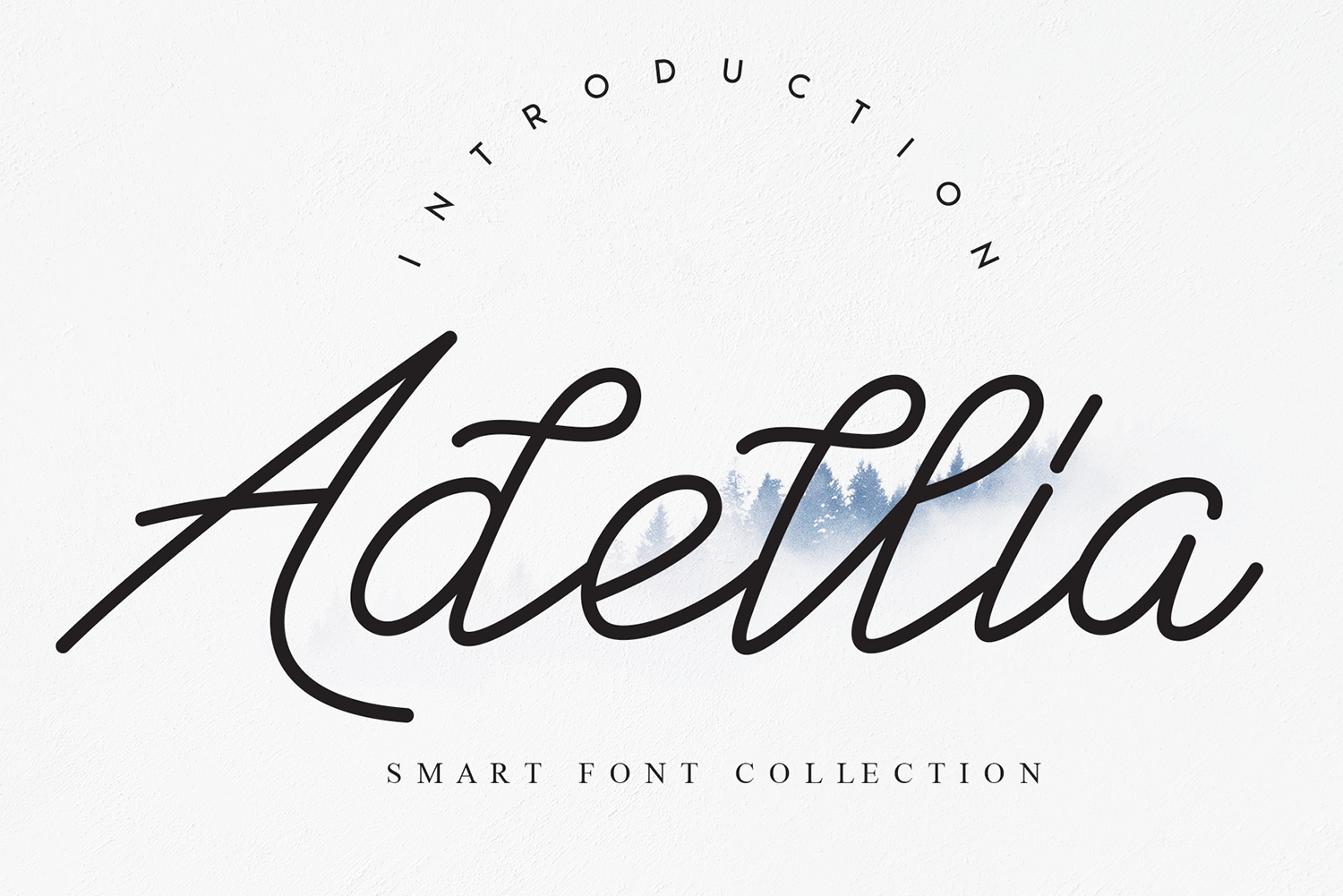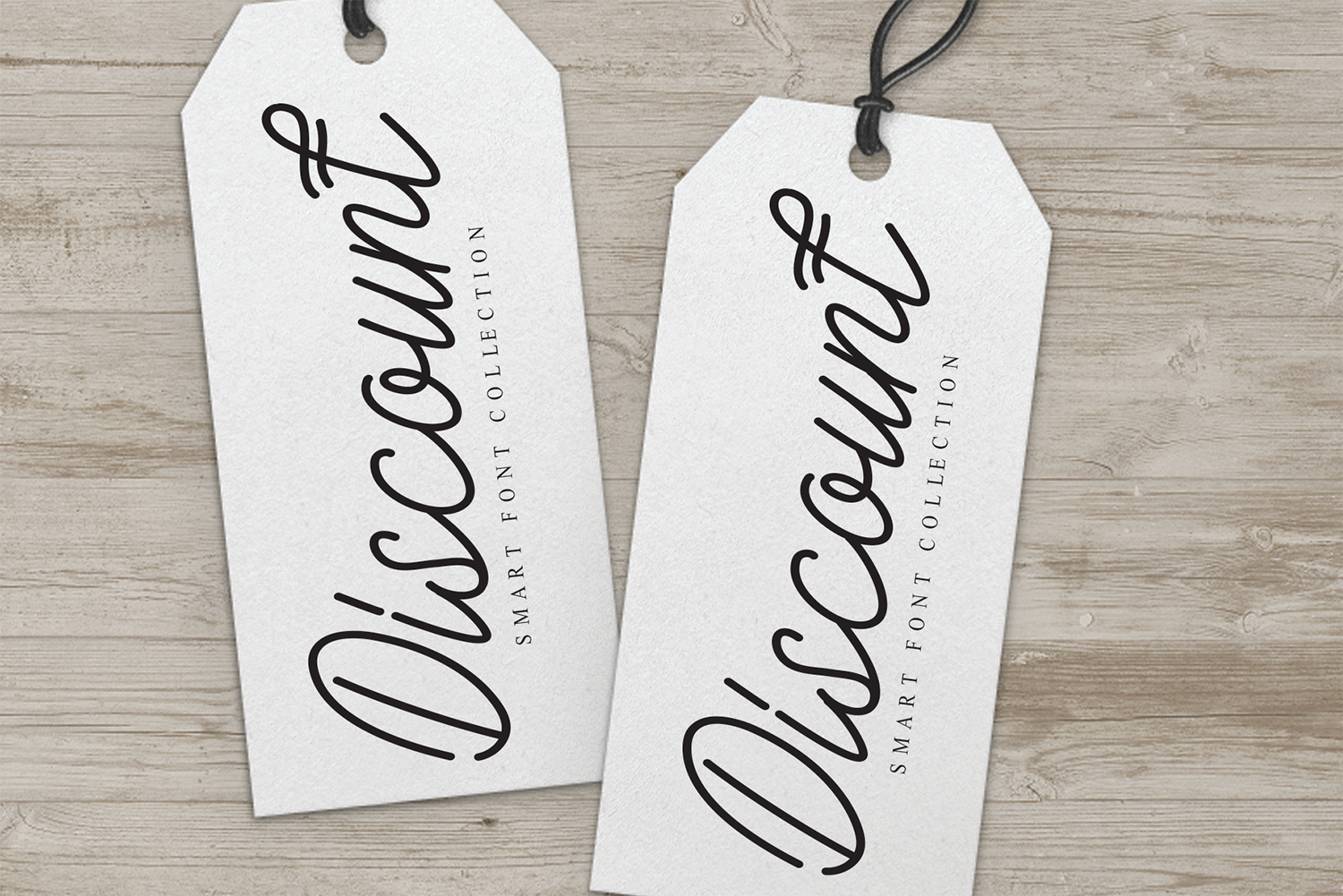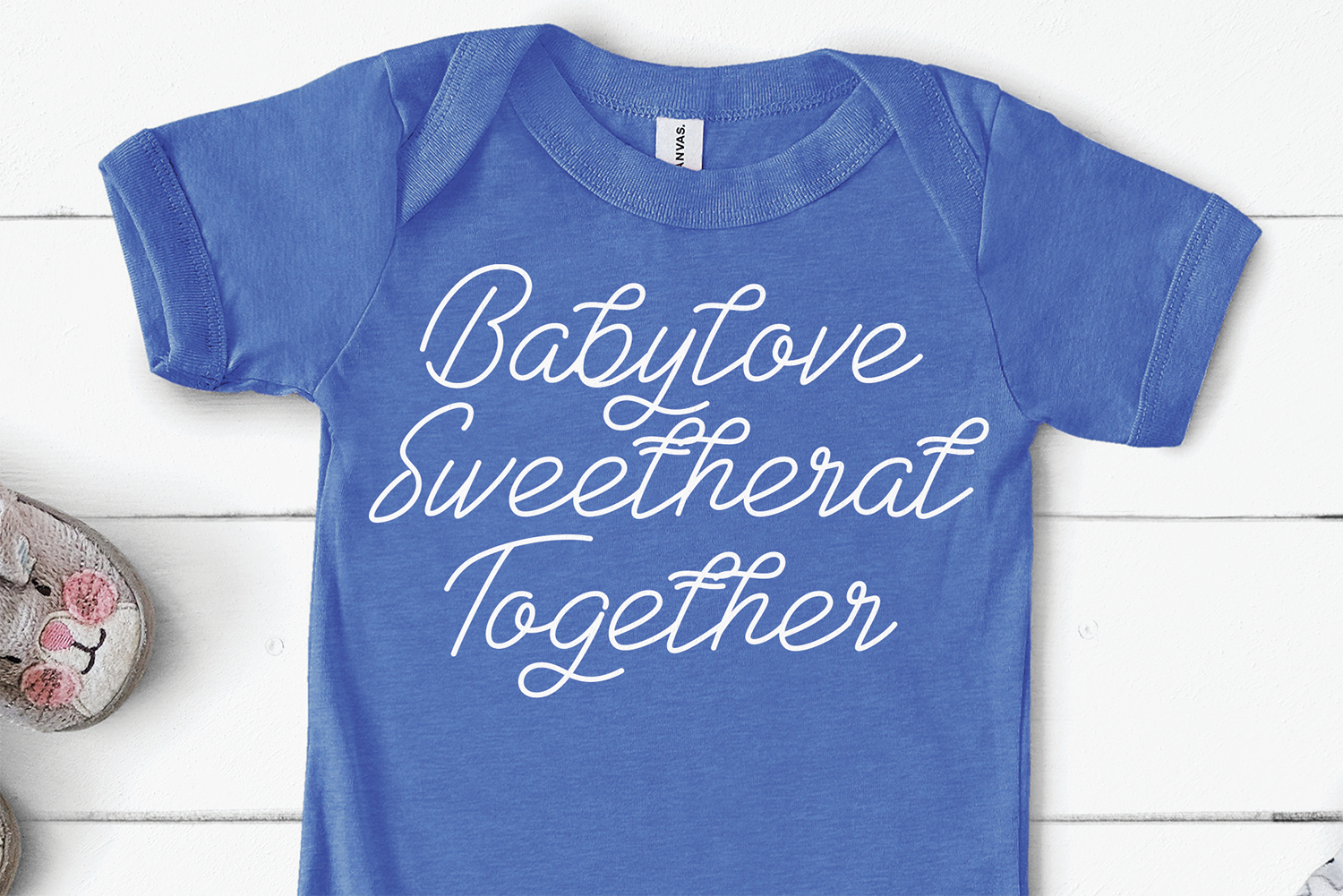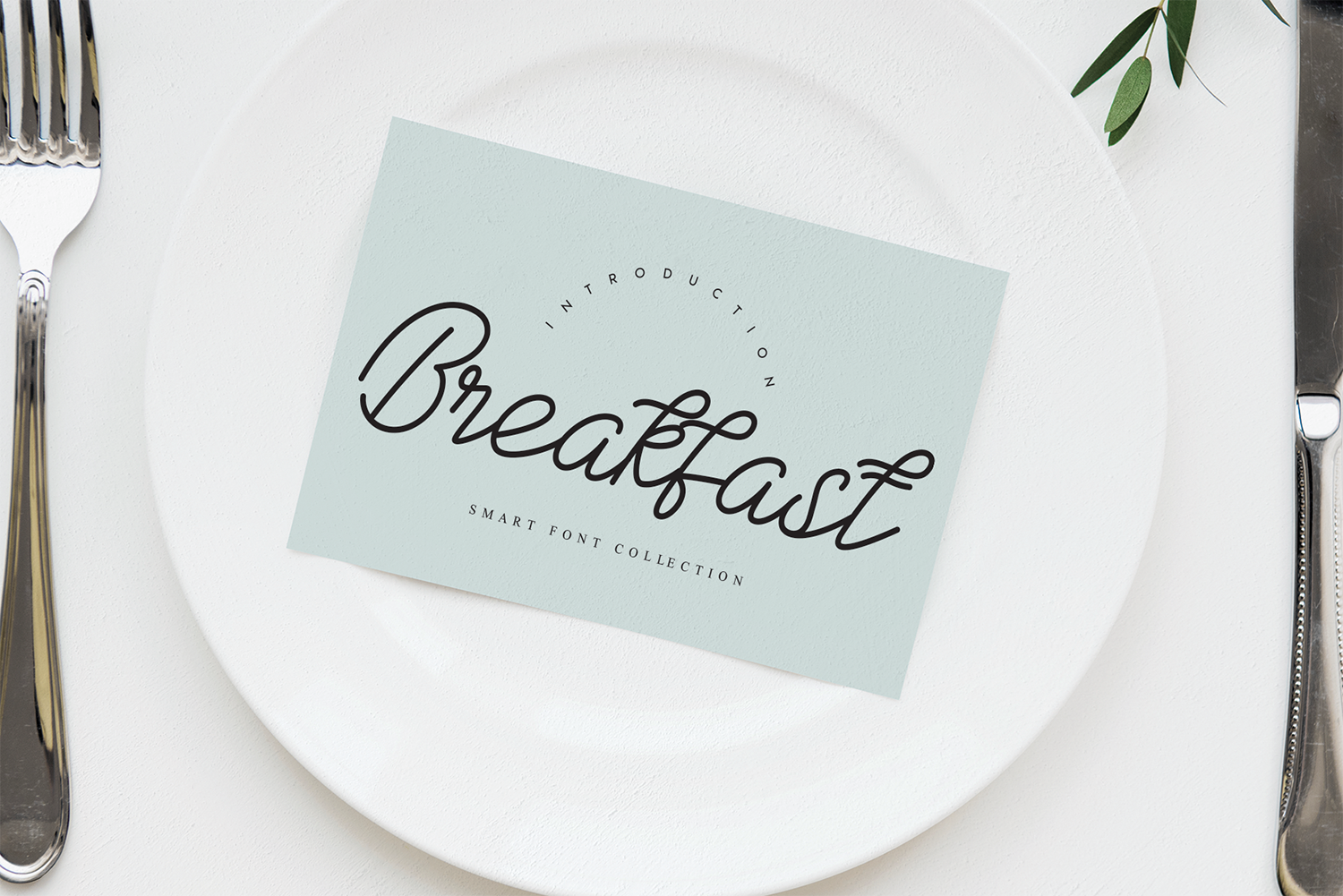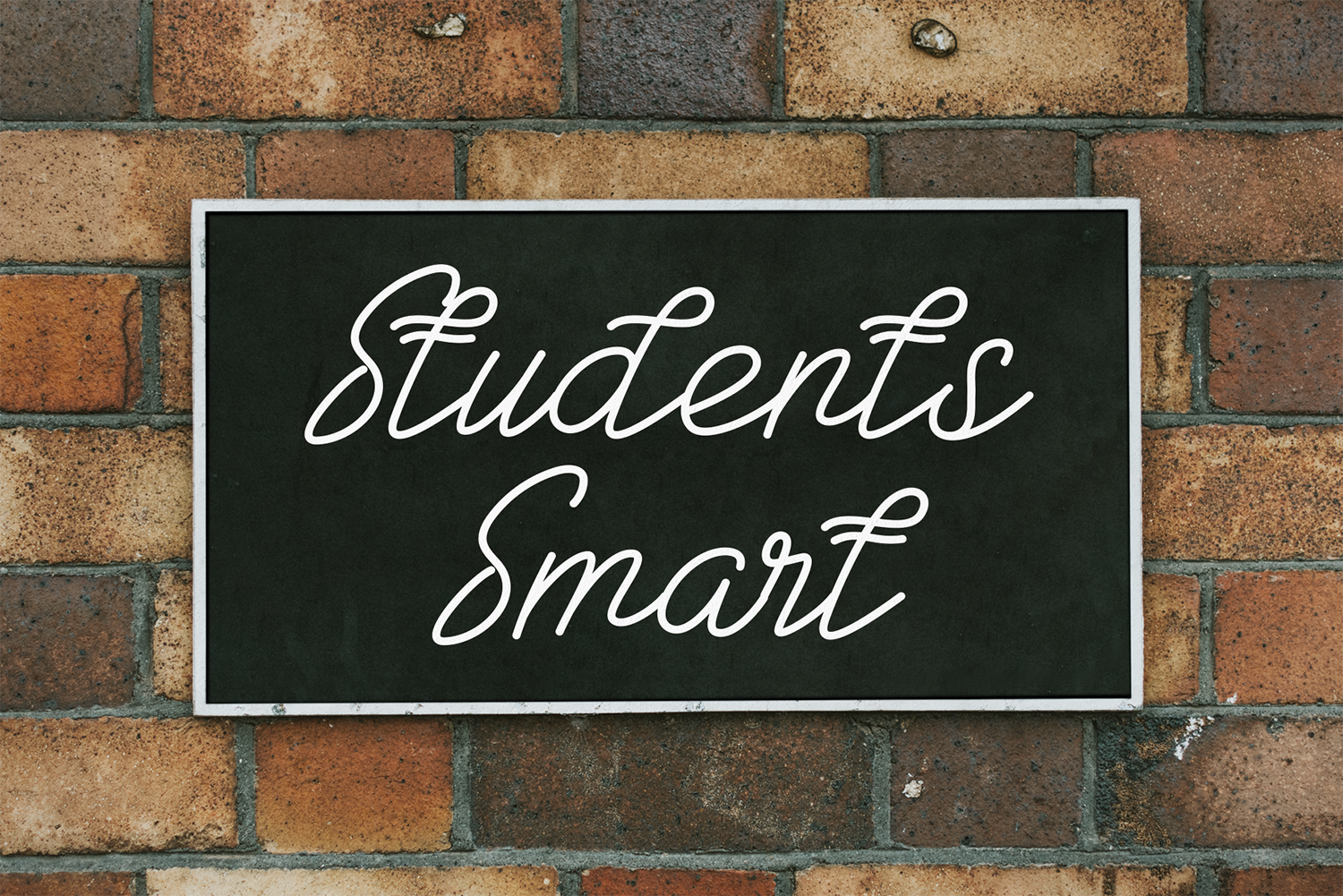
Adellia Free Font
Introducing Adellia Free Font: a one-of-a-kind and graceful handwritten font that exudes elegance. Its beauty graces an array of designs that demand a personalized touch, including wedding invitations, thank you cards, ceremonies, greeting cards, logos, and more. Adellia is the perfect choice for infusing your projects with a distinct and refined style. This free typeface was designed by a talented Scratchones Creative. If you like it don’t forget to check out the full version.